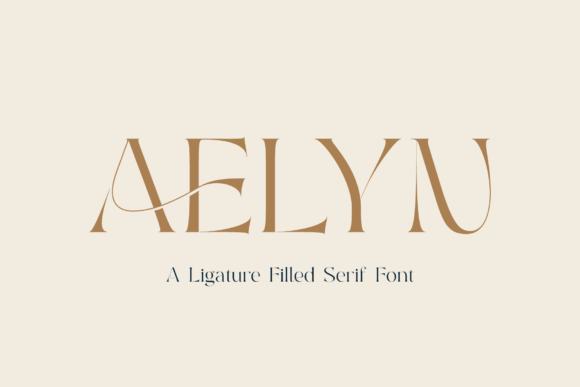
Introducing Aelyn Font, the epitome of modern elegance and sophistication. Created by Surplus Type Co., this luxurious serif font is designed to captivate and inspire. With its extensive selection of ligatures in both upper and lowercase characters, Aelyn offers endless possibilities for expressing your unique style.
Aelyn Font is the perfect choice for luxury brands aiming to make a bold statement. Its exquisite details and refined aesthetics convey a sense of opulence and exclusivity that will elevate your brand above the competition. Whether you're designing a high-end website, creating premium stationery, or crafting a visually stunning logo, Aelyn Font will add a touch of class that truly sets you apart.
The versatility of Aelyn Font knows no bounds. Its timeless charm seamlessly blends with modern design trends, making it an ideal companion for any project. Whether you're aiming for a sleek and minimalist look or a more elaborate and decorative style, Aelyn Font will effortlessly adapt to your vision.
Unlock your creativity and explore the boundless possibilities that Aelyn Font has to offer. Its ligature-filled characters will bring your words to life, adding a touch of elegance and finesse to any piece of text. From captivating headlines to engaging body copy, Aelyn Font will ensure that your message leaves a lasting impression on your audience.
Indulge in the enchanting allure of Aelyn Font and experience the power it holds to transform your designs. Its rich serifs and intricate ligatures will infuse your creations with a sense of sophistication and beauty. Let Aelyn Font be your secret weapon in crafting visually stunning masterpieces that leave a lasting impact.